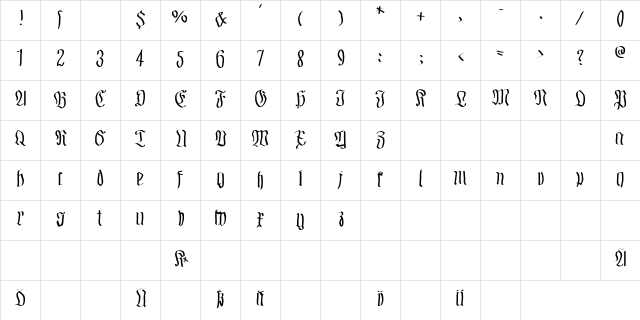
Complete FraxMouseSketches Regular glyph index. Displaying only characters natively supported by FraxMouseSketches Regular font.
FraxMouseSketches is a composed and adaptable typeface that performs quietly and consistently across a wide range of design contexts.